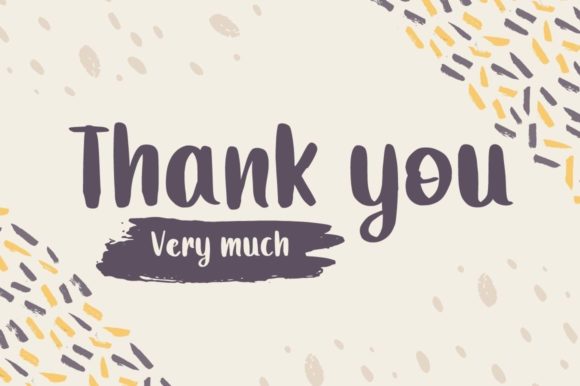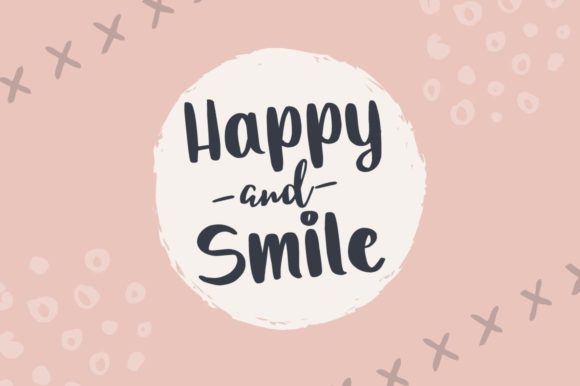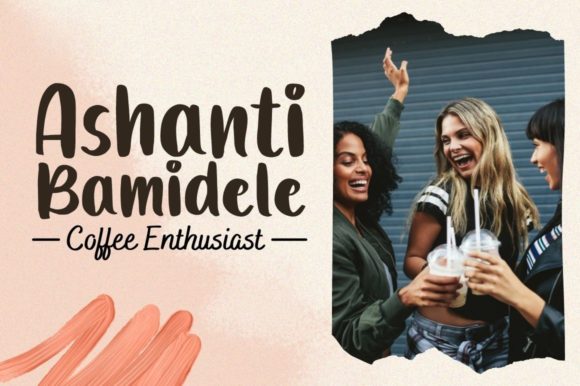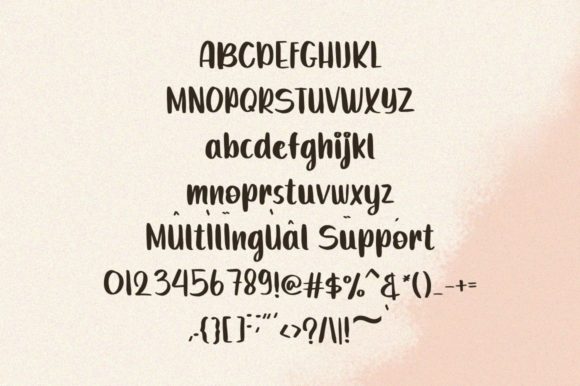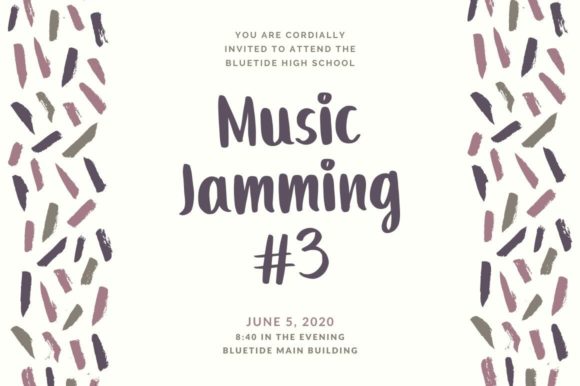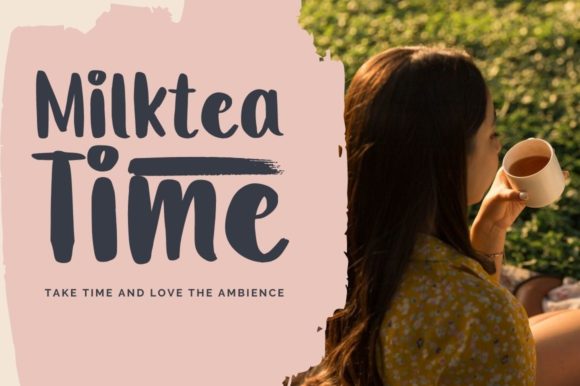
Introducing Binoty Font: Elevate Your Designs with a Playful Handwritten Style
Are you tired of using the same old fonts in your design projects? Do you want to add a touch of luxury and whimsy to your creations? Look no further than Binoty Font, a playful handwritten font that is sure to make your designs stand out. With its unique feel and stunning impact, Binoty Font is the perfect choice for designers and crafters looking to add a little extra something special to their work.
What Makes Binoty Font So Special?
Binoty Font is a one-of-a-kind font that boasts a playful and handwritten style, perfect for adding a personal touch to any design project. Its unique feel and stunning impact make it an excellent choice for a wide range of applications, from branding and advertising to packaging and digital media. Whether you’re creating a logo, brochure, or social media graphic, Binoty Font is sure to make your design pop.
The Benefits of Using Binoty Font
So why choose Binoty Font for your next design project? Here are just a few benefits of using this amazing font:
- Adds a touch of luxury: Binoty Font has a sophisticated and high-end feel that will elevate your designs and make them look more luxurious.
- Unique and eye-catching: With its playful handwritten style, Binoty Font is sure to grab attention and make your designs stand out from the crowd.
- Versatile: Binoty Font can be used for a wide range of applications, from digital media to print materials.
How to Use Binoty Font in Your Designs
Using Binoty Font in your designs is easy! Here are a few tips to get you started:
- Pair it with other fonts: Binoty Font pairs well with a variety of other fonts, so don’t be afraid to experiment and find the perfect combination for your design.
- Use it for headlines and titles: Binoty Font is perfect for headlines and titles, where its playful and eye-catching style can really shine.
- Add a personal touch: Use Binoty Font to add a personal touch to your designs, whether you’re creating a logo, business card, or social media graphic.
Design Inspiration with Binoty Font
Still not sure how to use Binoty Font in your designs? Here are a few examples of how you can use this amazing font to create stunning designs:
- Branding and logos: Use Binoty Font to create a unique and eye-catching logo that will help your brand stand out.
- Advertising and marketing materials: Binoty Font is perfect for creating eye-catching ads and marketing materials, such as brochures, flyers, and social media graphics.
- Packaging and labels: Add a touch of luxury to your packaging and labels with Binoty Font.
- Font type: Handwritten
- Glyphs and ligatures: Includes a wide range of glyphs and ligatures for easy use